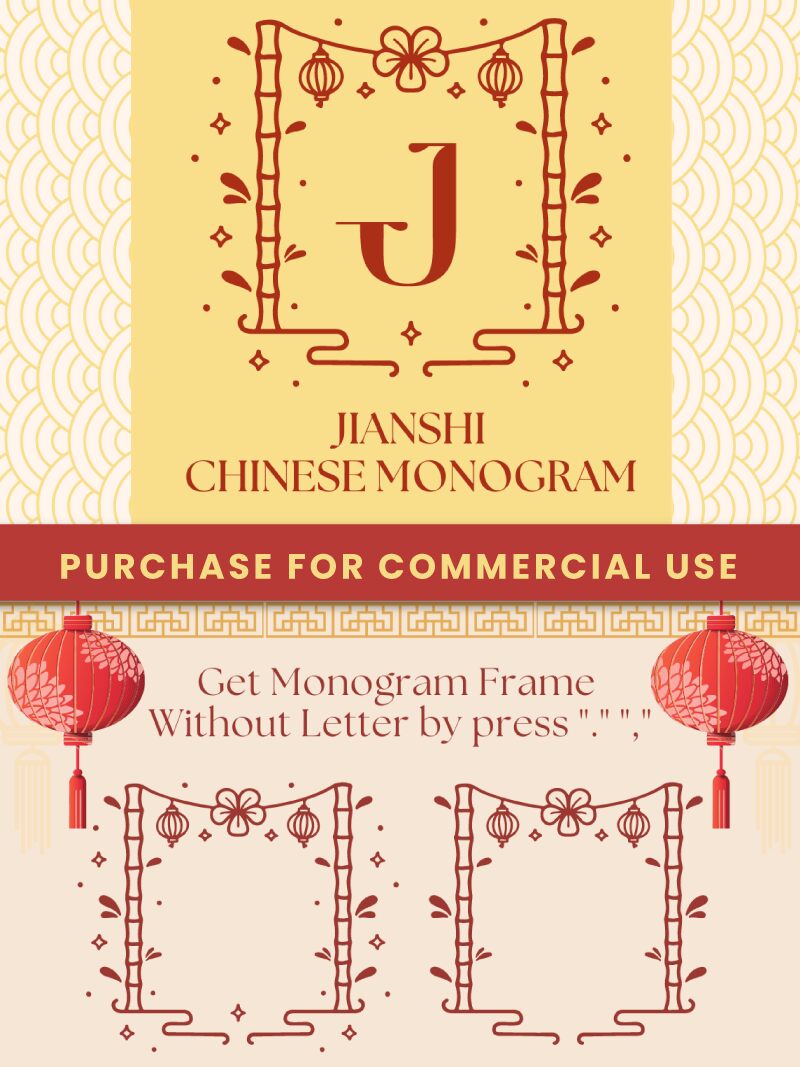
Jianshi Chinese Monogram
Jianshi Chinese Monogram, crafted by Attype Studio, is a display font that embodies the grace of Chinese calligraphy with a contemporary twist. Its decorative style captures the essence of traditional Chinese aesthetics while maintaining a modern semi-light weight that ensures versatility across various mediums.
The font's unique characteristics lie in its ability to merge cultural artistry with decorative modernity, making it an exceptional choice for projects aiming to convey elegance and cultural richness. Whether used for branding, product packaging, or artistic compositions, Jianshi Chinese Monogram offers designers a sublime fusion of East meets West.
With its distinct flair and aesthetic appeal, this font stands out as an inspired selection for those seeking to incorporate a touch of Chinese-inspired design into their creative work. The Jianshi Chinese Monogram is not just a font-it's an experience in typographic artistry.